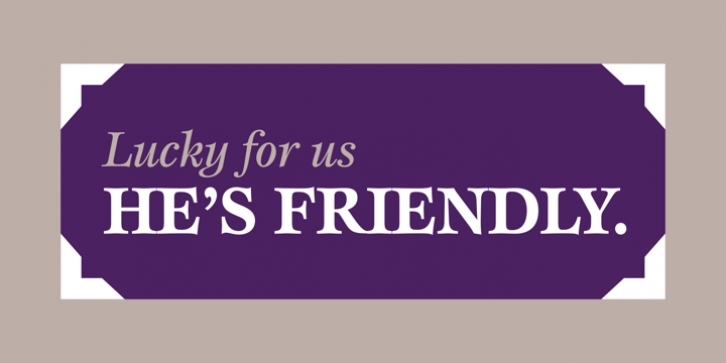
ITC Esprit was designed by Jovica Veljovic and published by Adobe. ITC Esprit contains 8 styles and family package options.
ITC Esprit was designed by calligrapher and type designer Jovica Veljovic for the International Typeface Corporation in 1985. ITC Esprit is an innovative blend of classical Roman proportions and calligraphic flair.
As its name suggests, ITC Esprit is a lively typeface that can bring exuberance to a variety of short texts and display work, from advertising to packaging.